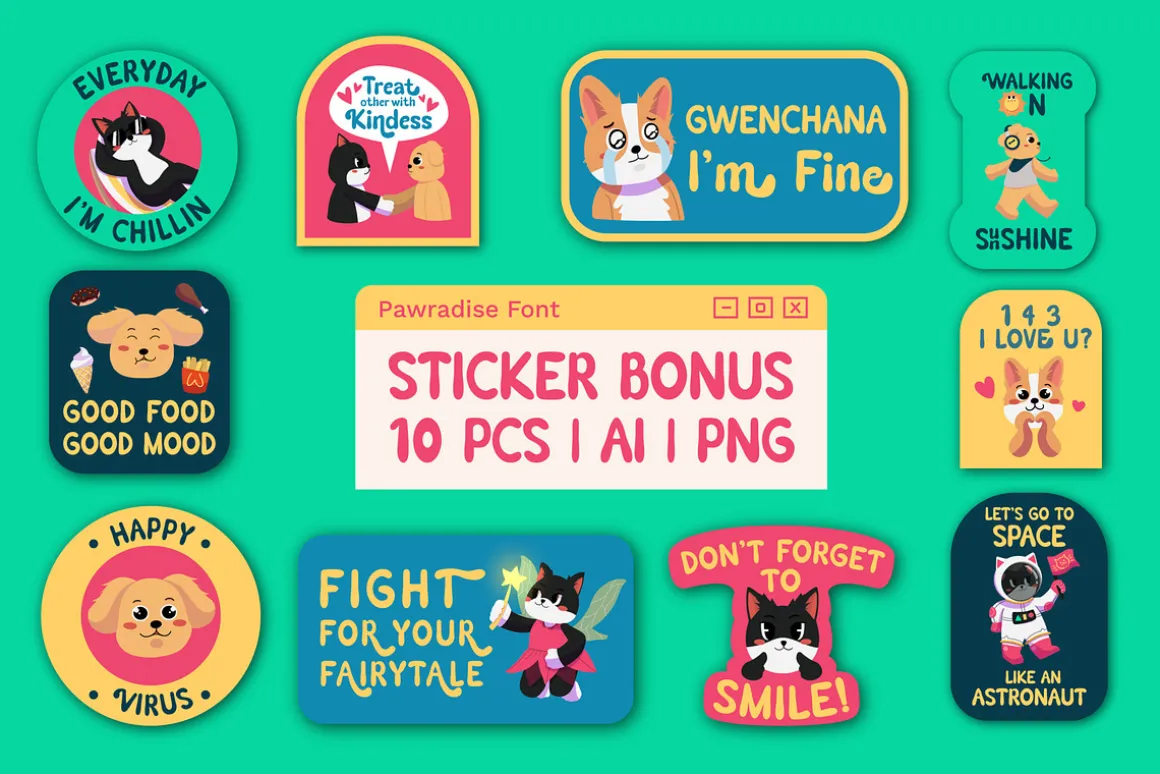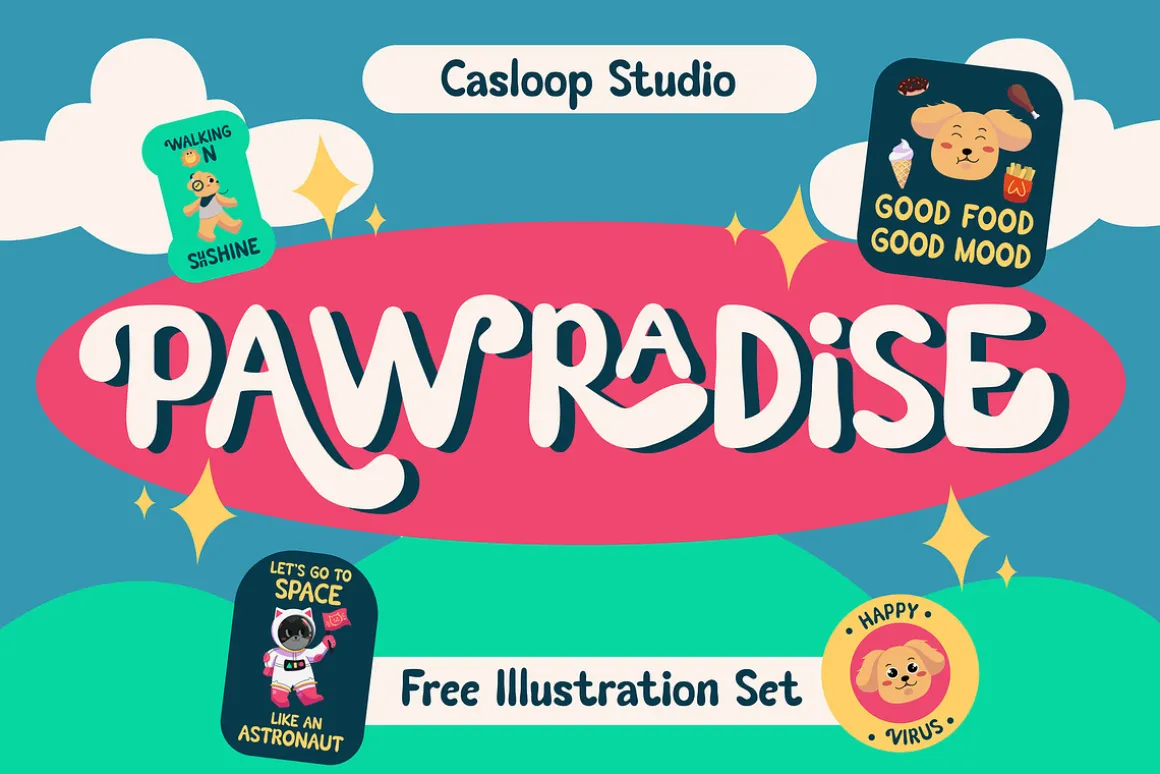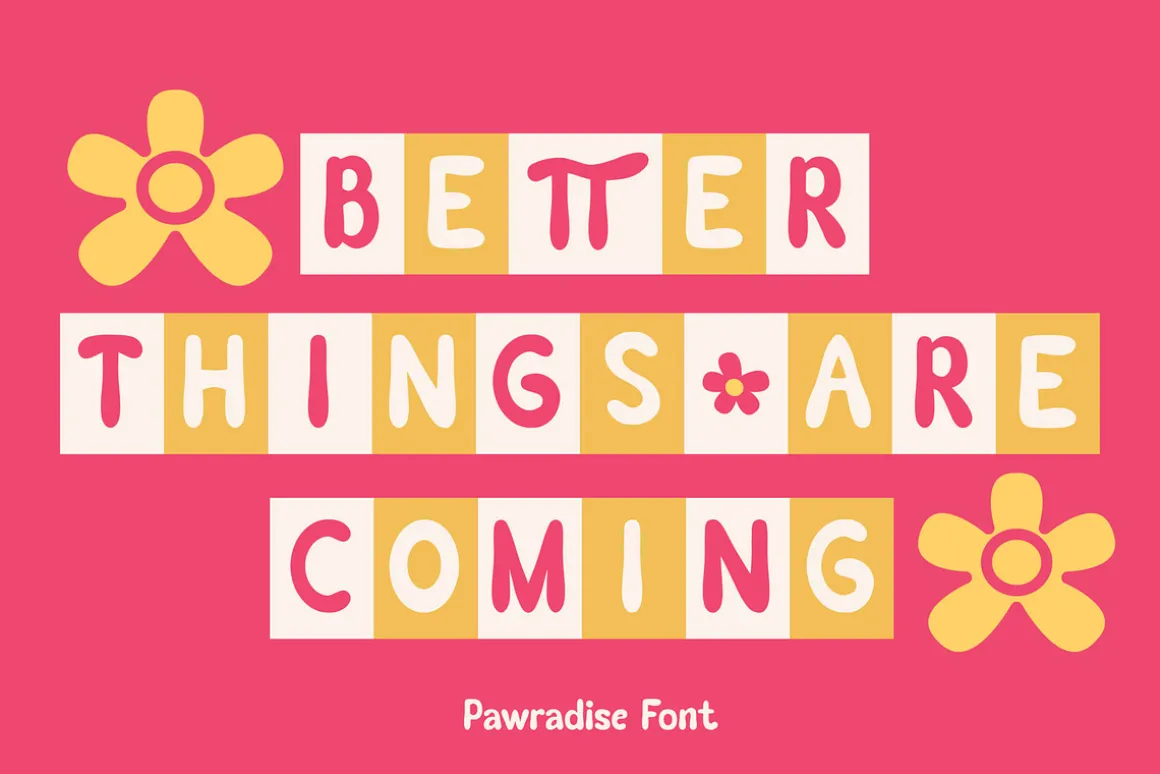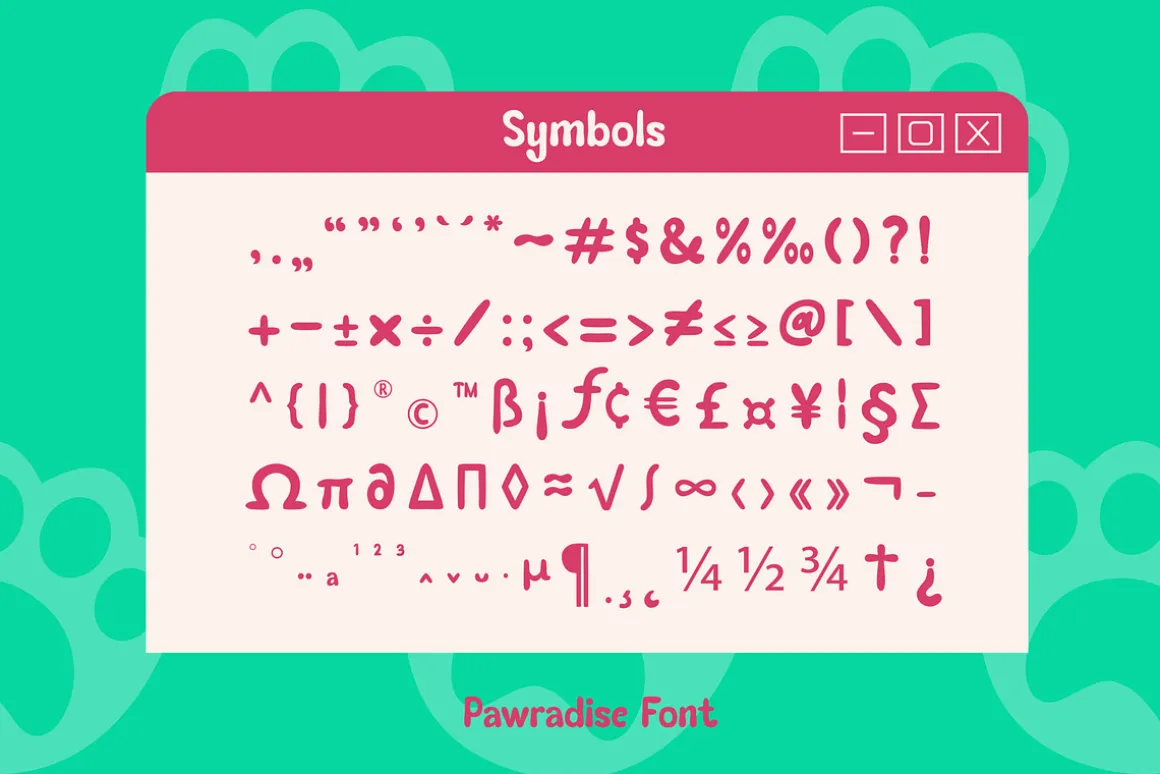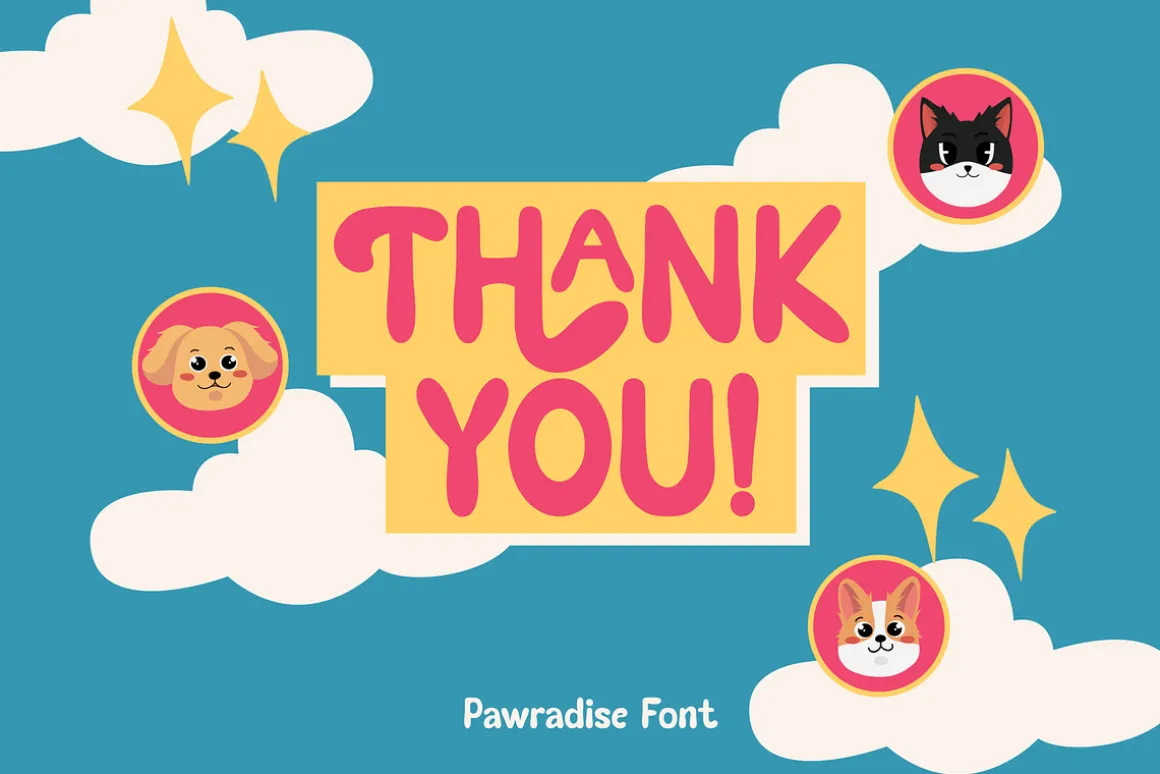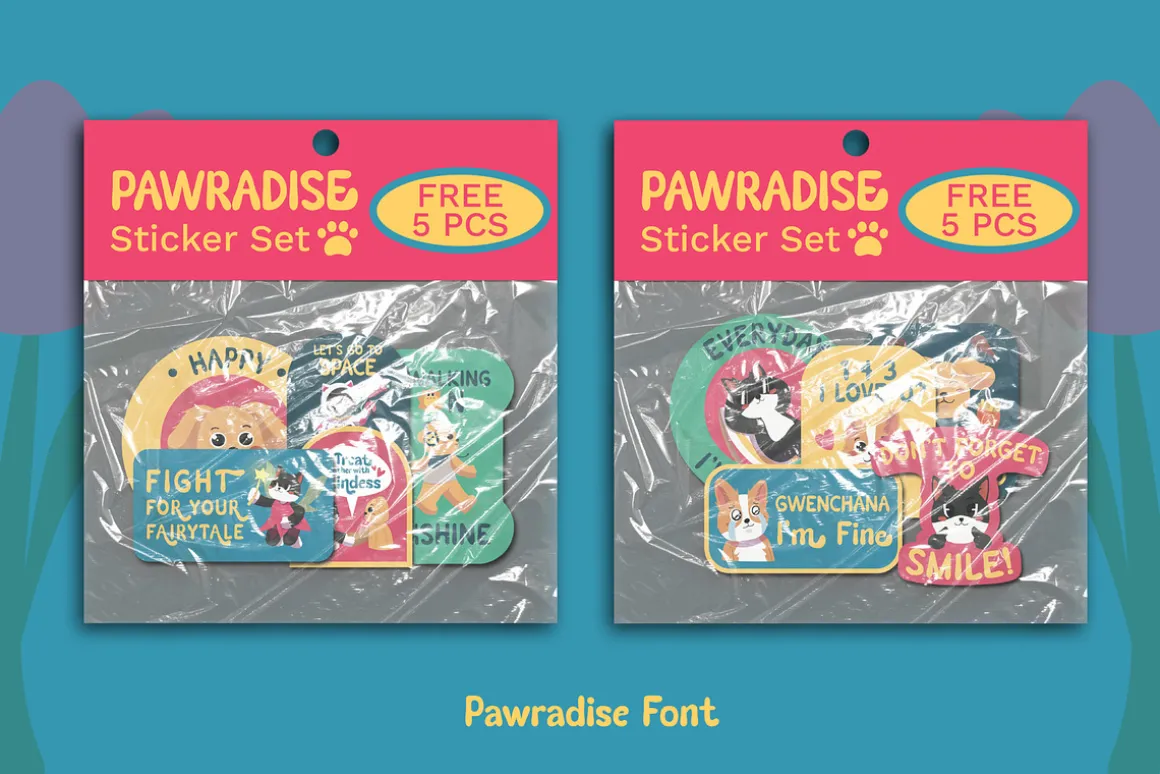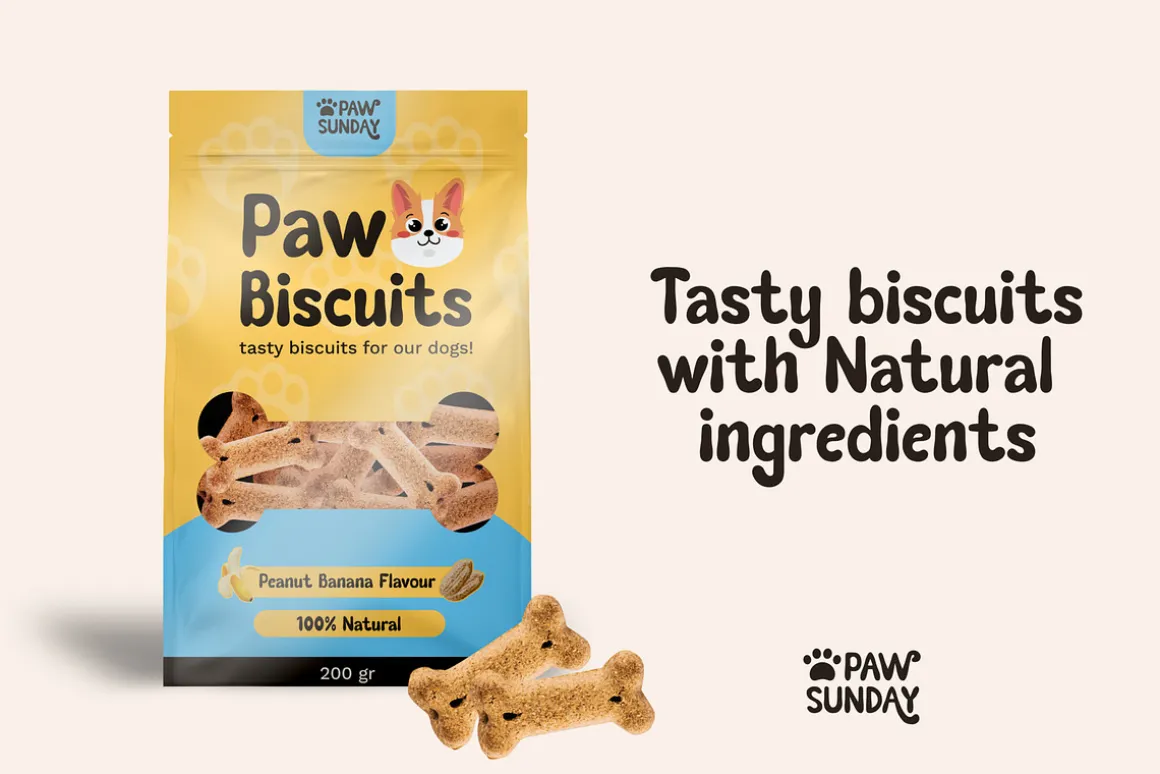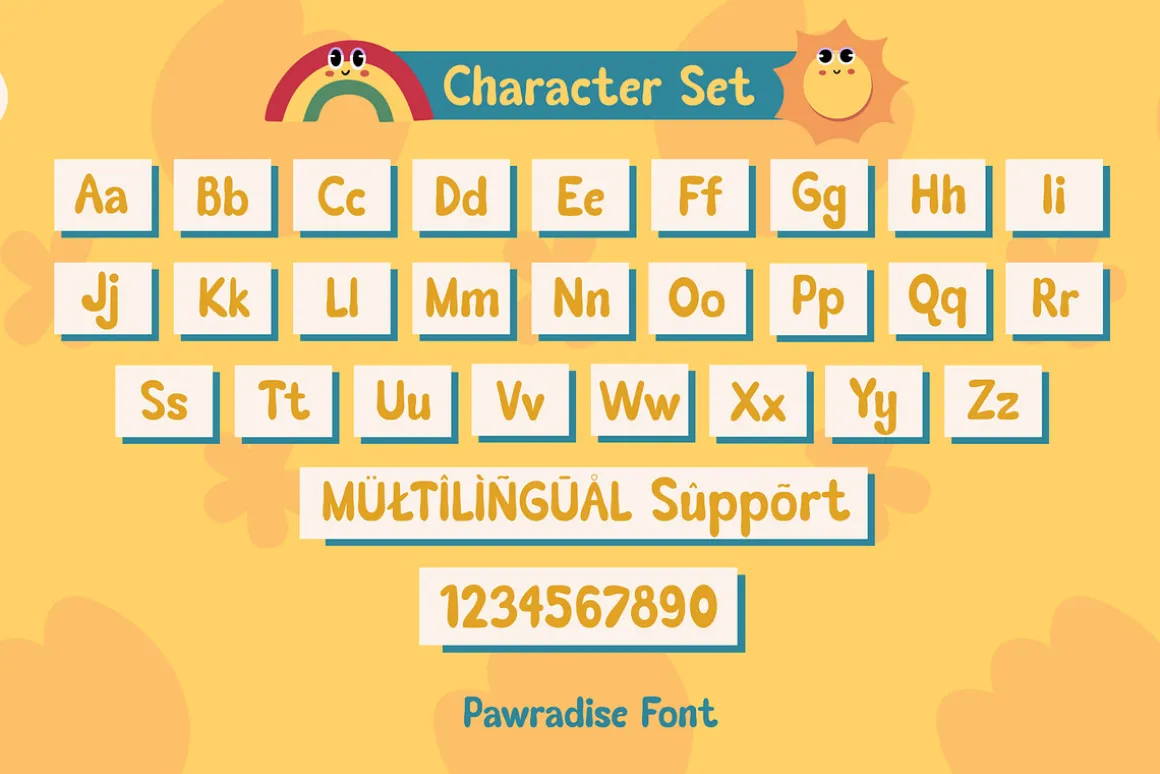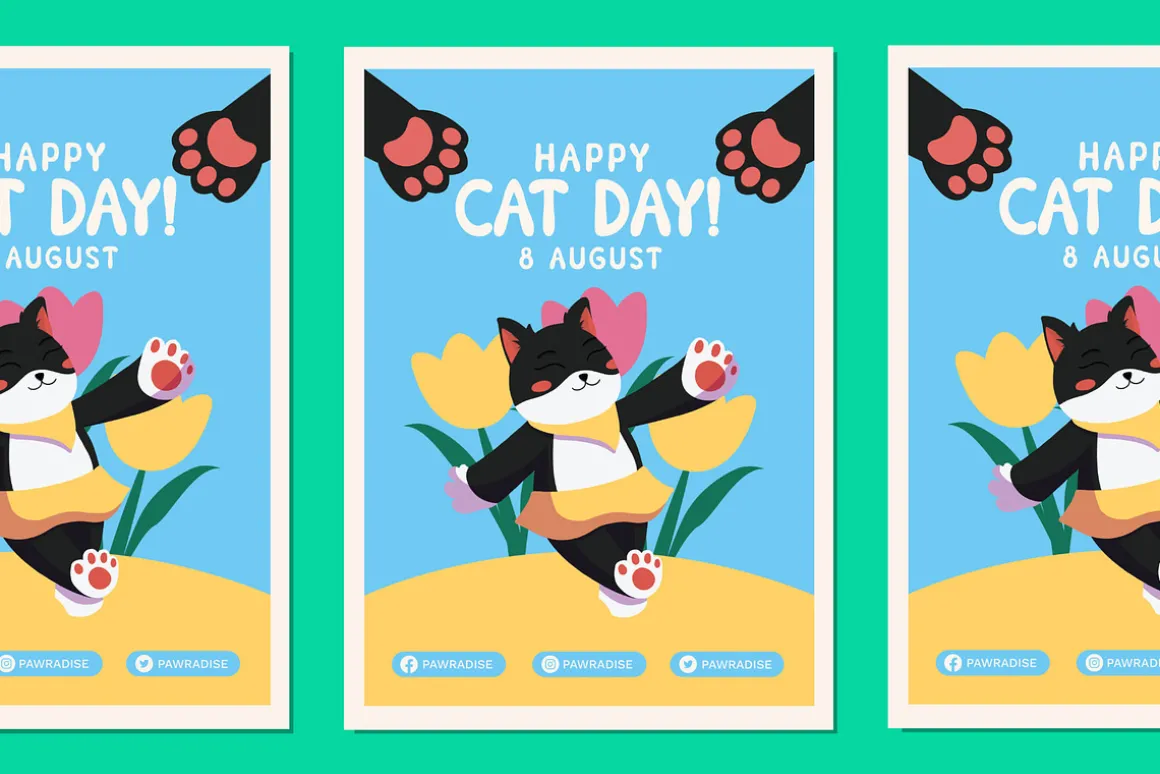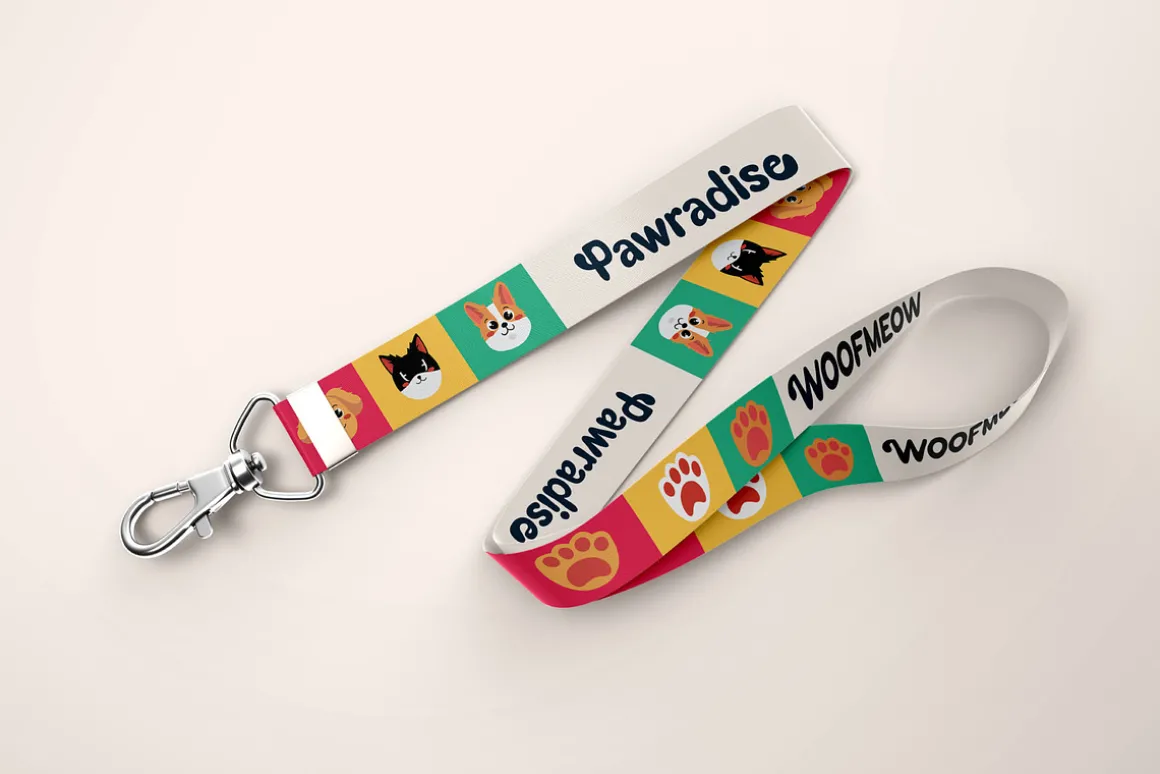
Pawradise is a typeface that brings a playful and enjoyable vibe. Designed with rounded and bubbly shapes, the font brings a touch of cheerfulness and excitement to each shape. The use of Pawradise is not limited to one specific field. You can apply this font to product labels to create a unique and cheerful impression, design logos with a soft and inviting appearance, or even craft product packaging to captivate customers with its visual delight.
Furthermore, Pawradise is also well-suited for clothing designs, such as t-shirts and tote bags, adding a fun touch to everyday fashion. Your creativity knows no bounds when using Pawradise, as this font not only radiates happiness but also brings an element of elegance with its smooth, circular shapes. In the world of design, full of variations and expressions, Pawradise is an ideal choice for those seeking a visually striking and memorable look.
With its uniqueness and strengths that create a fun and entertaining atmosphere, Pawradise is ready to add a touch of magic to your various design projects. Therefore, do not hesitate to make Pawradise your top choice in creating works filled with joy and creativity, turning every project into an enjoyable adventure. Woof – woof!
- Uppercase & lowercase
- Numbers and punctuation
- Ligatures & Alternates
- Multilingual